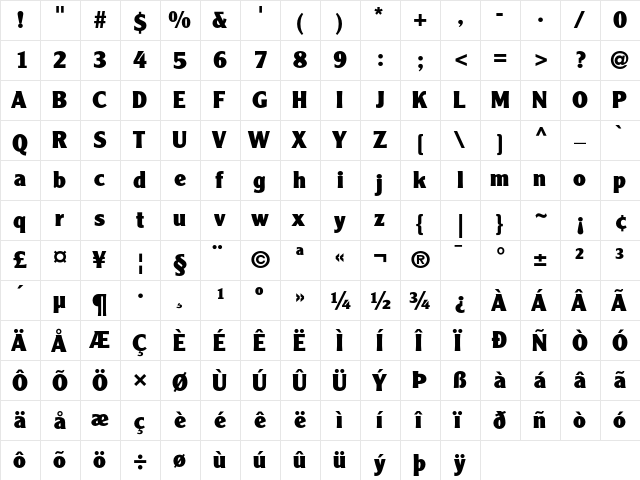
Clearface Gothic LH 95 Black Font Preview
Clearface Gothic LH 95 Black
Design Context for Clearface Gothic LH Typeface
Clearface Gothic LH takes a clean, functional approach — its unadorned letterforms prioritise legibility and work reliably across screen and print environments.
Font Pairing: Works well alongside a characterful serif or display font that can carry the expressive load while Clearface Gothic LH handles the functional copy.
Pro Tip: Pair Clearface Gothic LH with a display or serif font for headlines — its neutral character makes it an excellent supporting player in complex typographic systems.